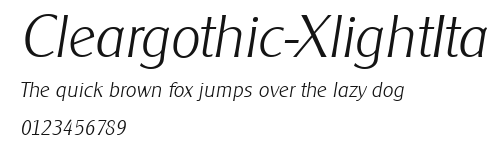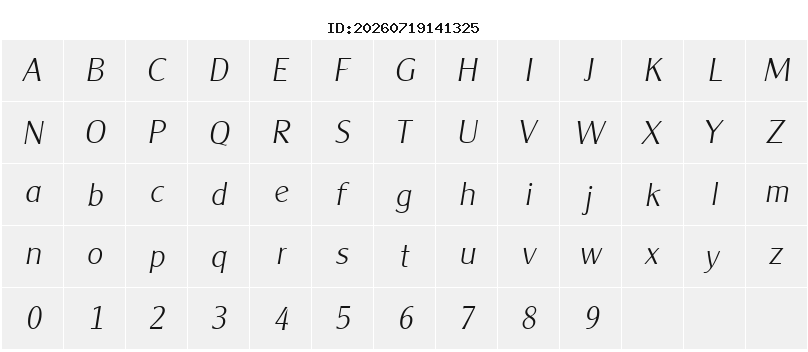
• Font Name: Cleargothic-XlightIta
• Full Font Name: Cleargothic-XlightIta
About Cleargothic-XlightIta.ttf
Cleargothic-XlightIta.ttf is a modern, elegant sans-serif font designed for ultimate readability and visual harmony. Perfect for branding, headlines, web design, and print materials.